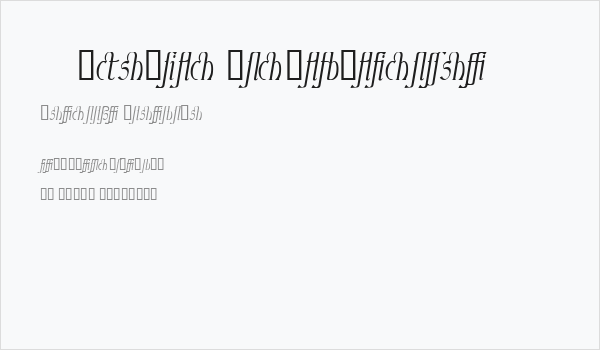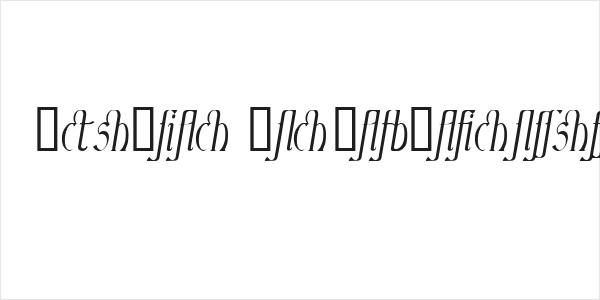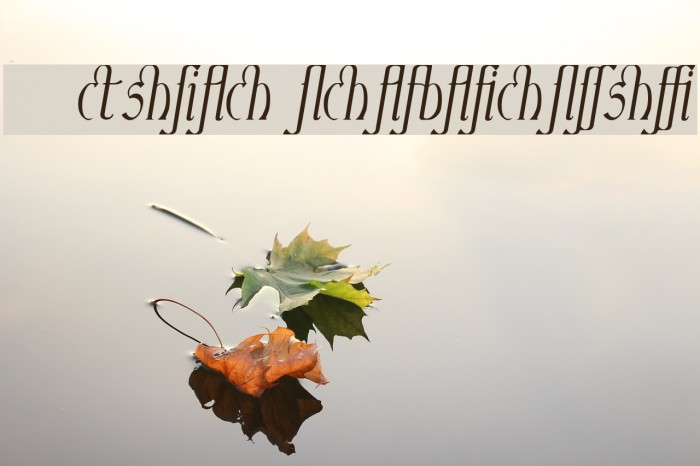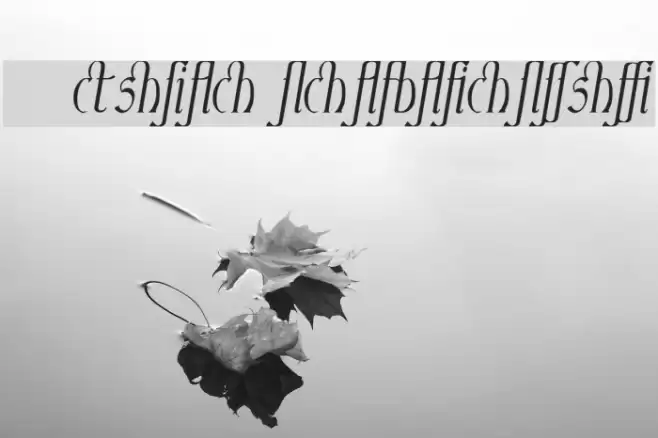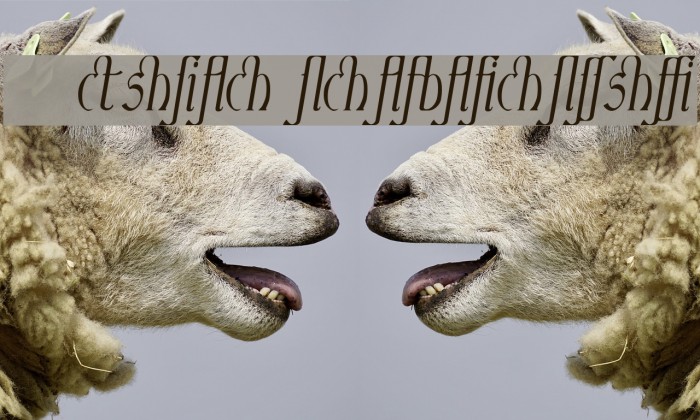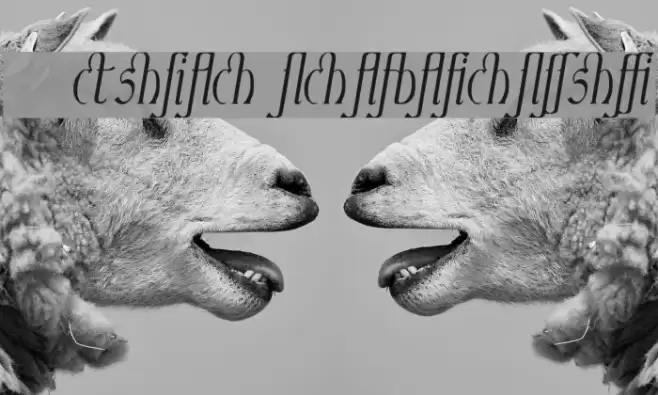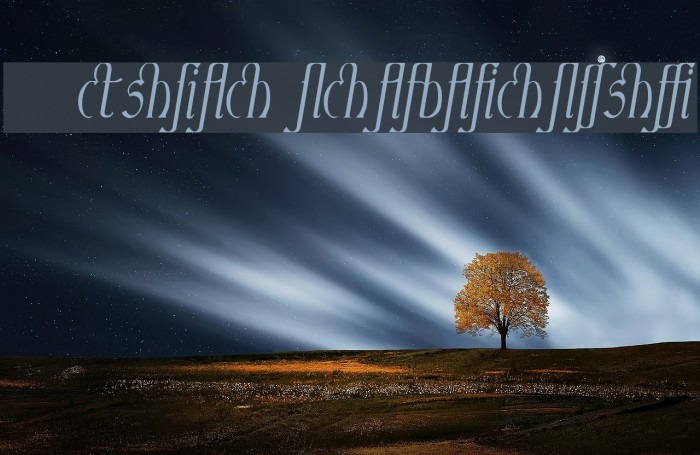
Ambrosia ItalicLigature Font
Ambrosia ItalicLigature Description
This font features elegant and flowing italic ligatures, characterized by smooth, connected strokes that create a sense of fluidity and grace. The design emphasizes the harmony between letters, with each ligature seamlessly blending into the next. The strokes are moderately thick, providing a balanced contrast that enhances readability while maintaining an artistic flair. The overall appearance is sophisticated and refined, making it suitable for projects that require a touch of elegance and style.
| Overall Style | Elegant |
| Use Case | Logos, Invitations, Decorative text |
| Proposed Projects | Ideal for wedding invitations, luxury branding, elegant posters, and artistic book covers. |